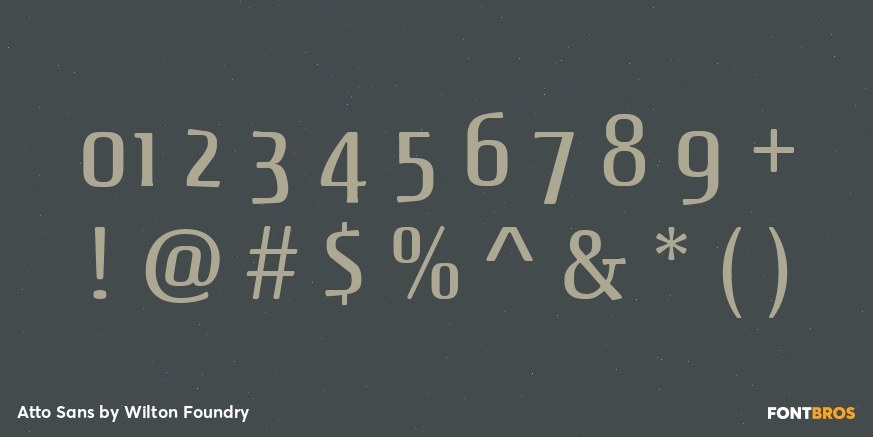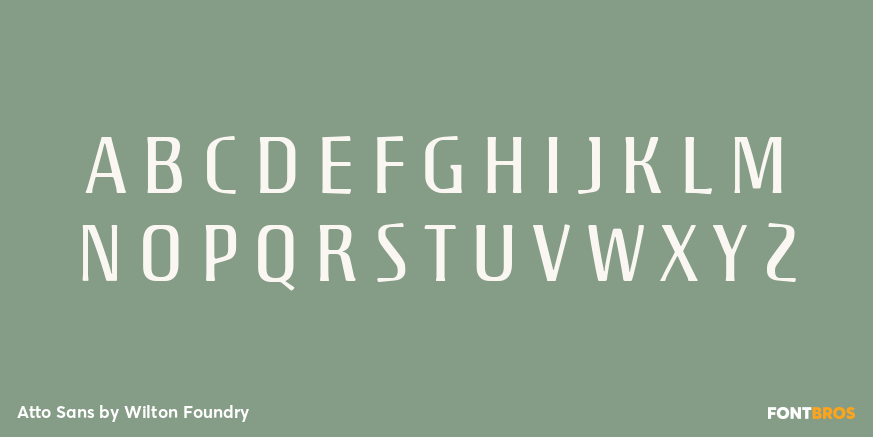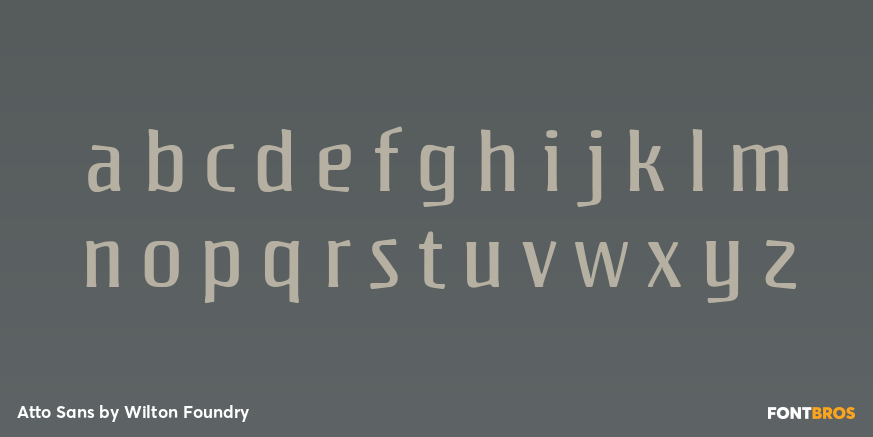
Atto Sans
Font Family by Wilton Foundry
I set out to design a contemporary font that is condensed with thick and thin strokes. The highly structured forms of this condensed font was made more interesting and softer by giving it a slightly calligraphic tone and by adding round corners. Atto's express purpose is to be both utilitarian, compact and technical but with a friendly face.